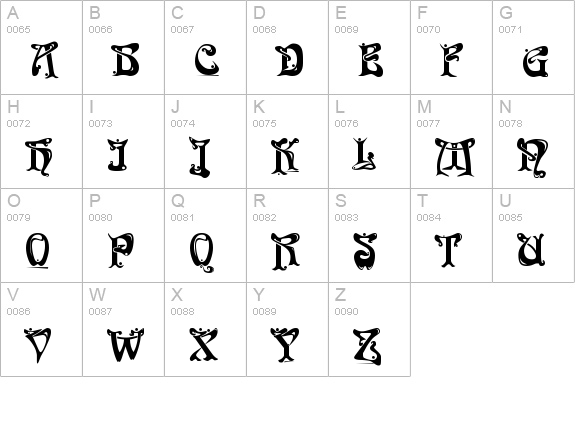
Funk Regular is the standard, neutral variant in the Funk typeface family \xE2\x80\x94 well suited to general body text, paragraphs, and standard typographic work.
Funk Regular font is a fun and playful typeface that radiates a retro vibe with its funky and charismatic appearance. With its bold and dynamic letterforms, this font is perfect for adding a touch of personality to various design projects. Whether you're working on posters, flyers, or branding materials, Funk Regular font is sure to make a statement and capture the attention of your audience. The best part is that Funk Regular font is available for free download at FontsMarket.com, making it easily accessible for designers and creatives looking to incorporate a bit of fun and flair into their work. So why wait? Get your hands on this vibrant font today and let your creativity shine with Funk Regular!